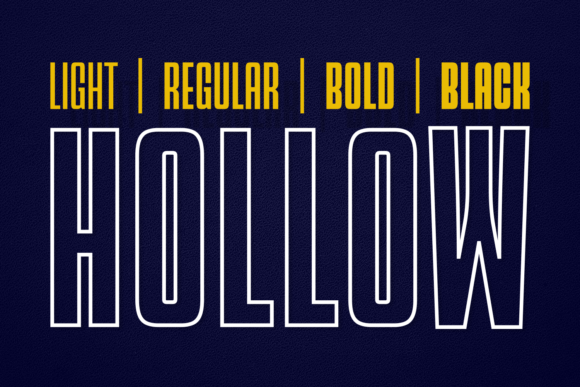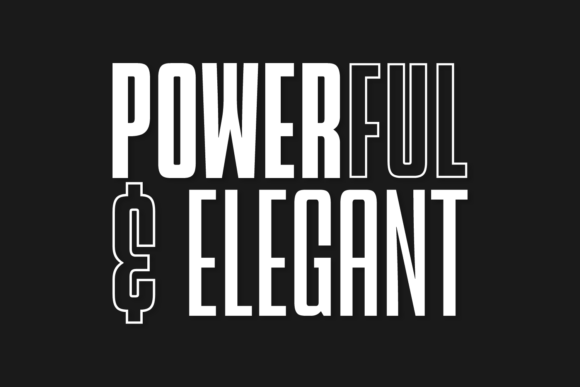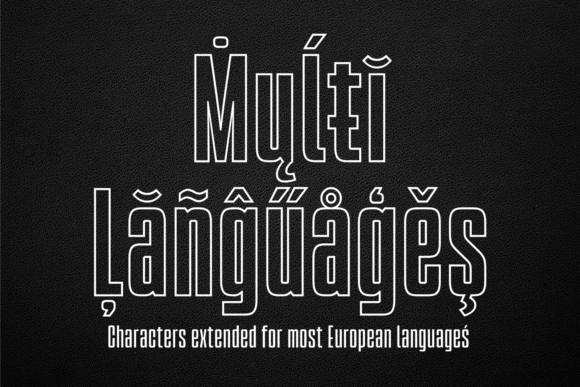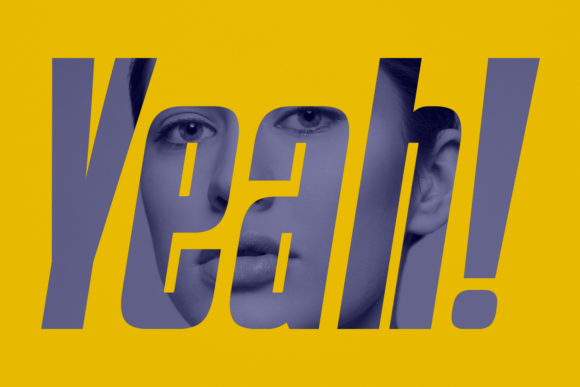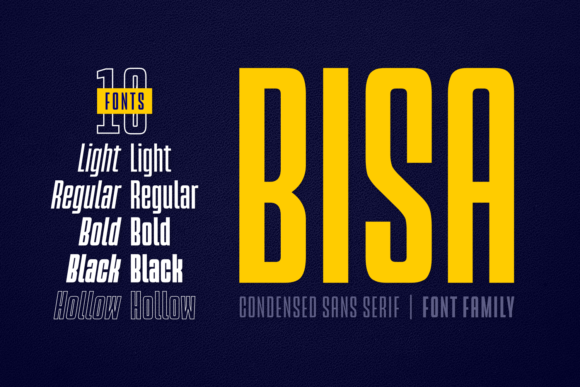
Bisa Font: The Ultimate Display Font for Bold and Impactful Designs
Are you looking for a font that can add a bold and assertive touch to your designs? Look no further than Bisa Font! This cool, bold, and thick lettered display font is perfect for various designs that require a strong and impactful presence, such as sporty projects, labels, or branding. In this article, we’ll dive into the features and benefits of Bisa Font, and explore how it can elevate your designs to the next level.
What is Bisa Font?
Bisa Font is a display font designed to make a statement. Its bold and thick lettering makes it perfect for headlines, titles, and any other design element that needs to grab attention. The font is clean, modern, and highly legible, making it easy to read even at small sizes. Whether you’re designing a logo, label, or social media graphic, Bisa Font is sure to make an impact.
Key Features of Bisa Font
- Bold and Thick Lettering: Bisa Font features bold and thick lettering that makes it perfect for designs that require an assertive touch.
- Clean and Modern Design: The font has a clean and modern design that makes it highly legible and easy to read.
- Versatile: Bisa Font can be used for a wide range of designs, from sporty projects to labels and branding.
Benefits of Using Bisa Font
So, why should you use Bisa Font in your designs? Here are just a few benefits of using this powerful display font:
- Adds Impact and Emphasis: Bisa Font is designed to grab attention and add emphasis to your designs. Its bold and thick lettering makes it perfect for headlines and titles.
- Enhances Branding: Bisa Font can help take your branding to the next level by adding a bold and assertive touch to your logo and marketing materials.
- Increases Legibility: The font is highly legible, even at small sizes, making it perfect for designs that require a lot of text.
- Versatile and Flexible: Bisa Font can be used for a wide range of designs, from digital graphics to print materials.
Design Ideas Using Bisa Font
So, how can you use Bisa Font in your designs? Here are a few ideas to get you started:
- Sporty Projects: Bisa Font is perfect for sporty projects, such as team logos, jerseys, and sports equipment.
- Labels and Packaging: The font is great for labels and packaging, adding a bold and assertive touch to your products.
- Branding and Advertising: Bisa Font can help take your branding and advertising to the next level by adding a bold and impactful touch to your marketing materials.
- Social Media Graphics: The font is perfect for social media graphics, adding a bold and eye-catching touch to your posts and stories.
In conclusion, Bisa Font is a powerful display font that can add a bold and assertive touch to your designs. Its clean and modern design, bold and thick lettering, and high legibility make it perfect for a wide range of designs, from sporty projects to labels and branding. Whether you’re a designer or a crafter, Bisa Font is a great addition to your font library. So, why not give it a try and see how it can elevate your designs to the next level?